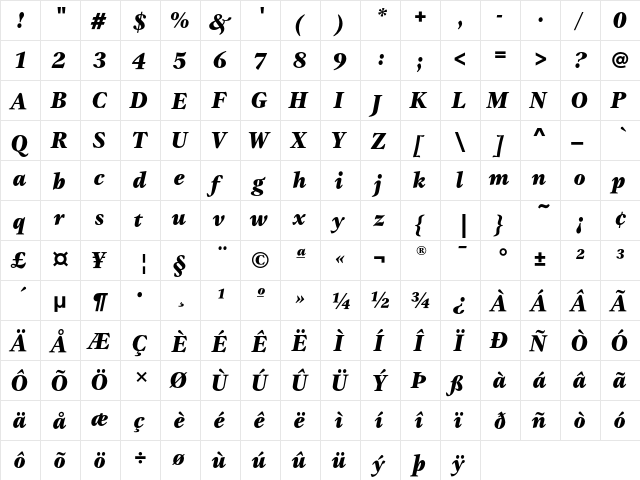
GammaEF BlackItalic
Design Context for GammaEF Typeface
GammaEF is a composed and adaptable typeface that performs quietly and consistently across a wide range of design contexts. The slanted form adds forward momentum and visual energy.
Pro Tip: Try GammaEF for annotation and caption copy alongside an upright companion — the contrast in angle creates a dynamic but ordered typographic system.